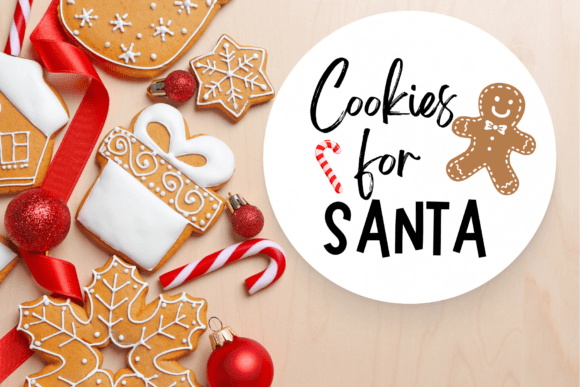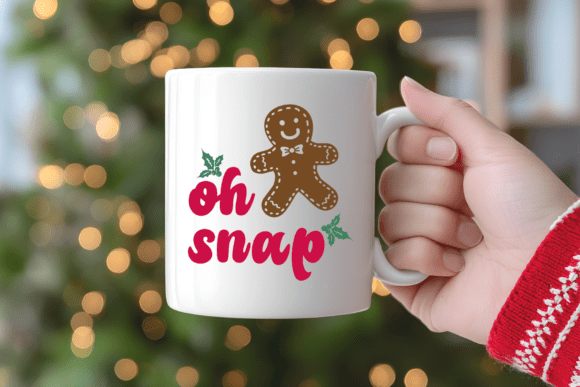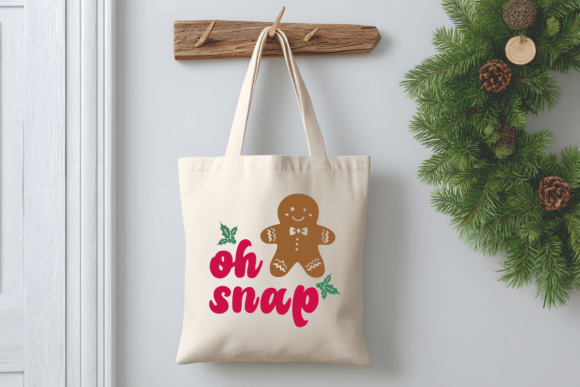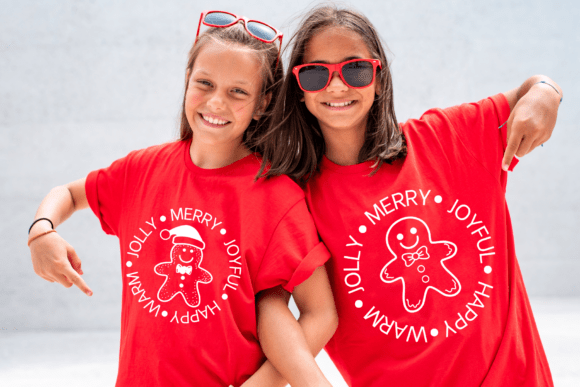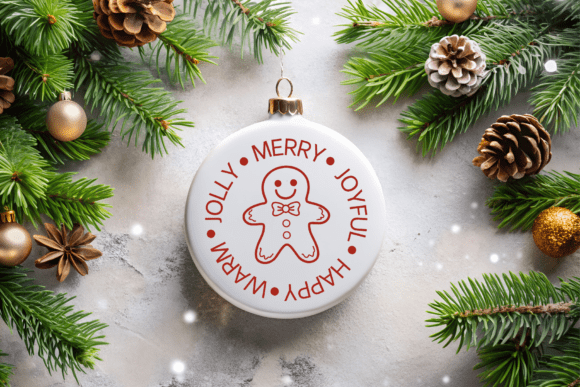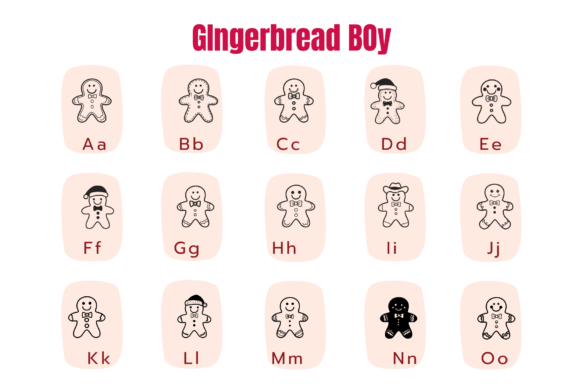
Gingerbread Boy Font
Gingerbread Boy dingbat font is a fun and festive collection of cute gingerbread characters, perfect for adding a sweet holiday touch to your designs. Ideal for Christmas cards, crafts, stickers, and packaging. This dingbat font brings the joy of the season to life with every adorable cookie shape!